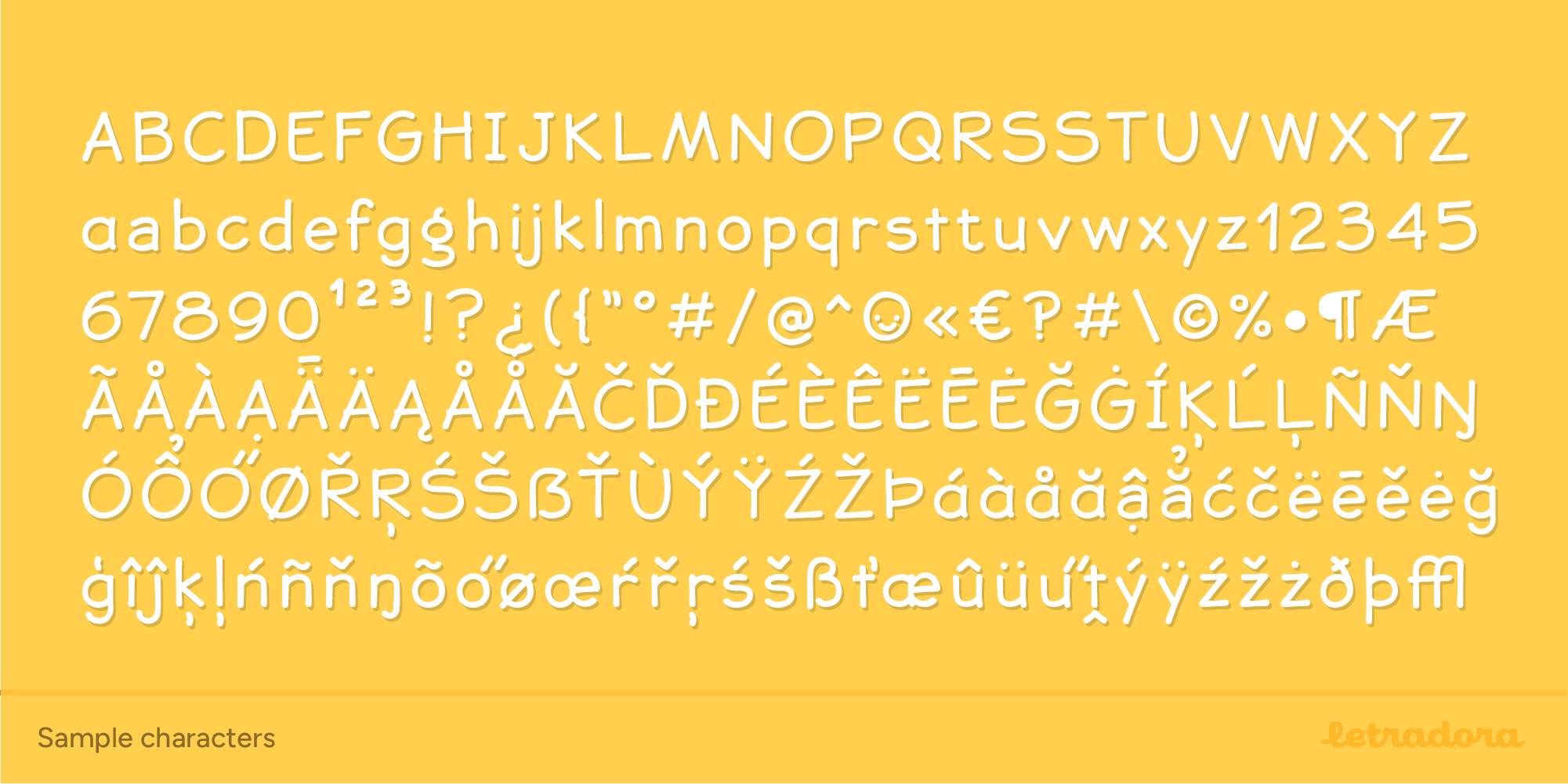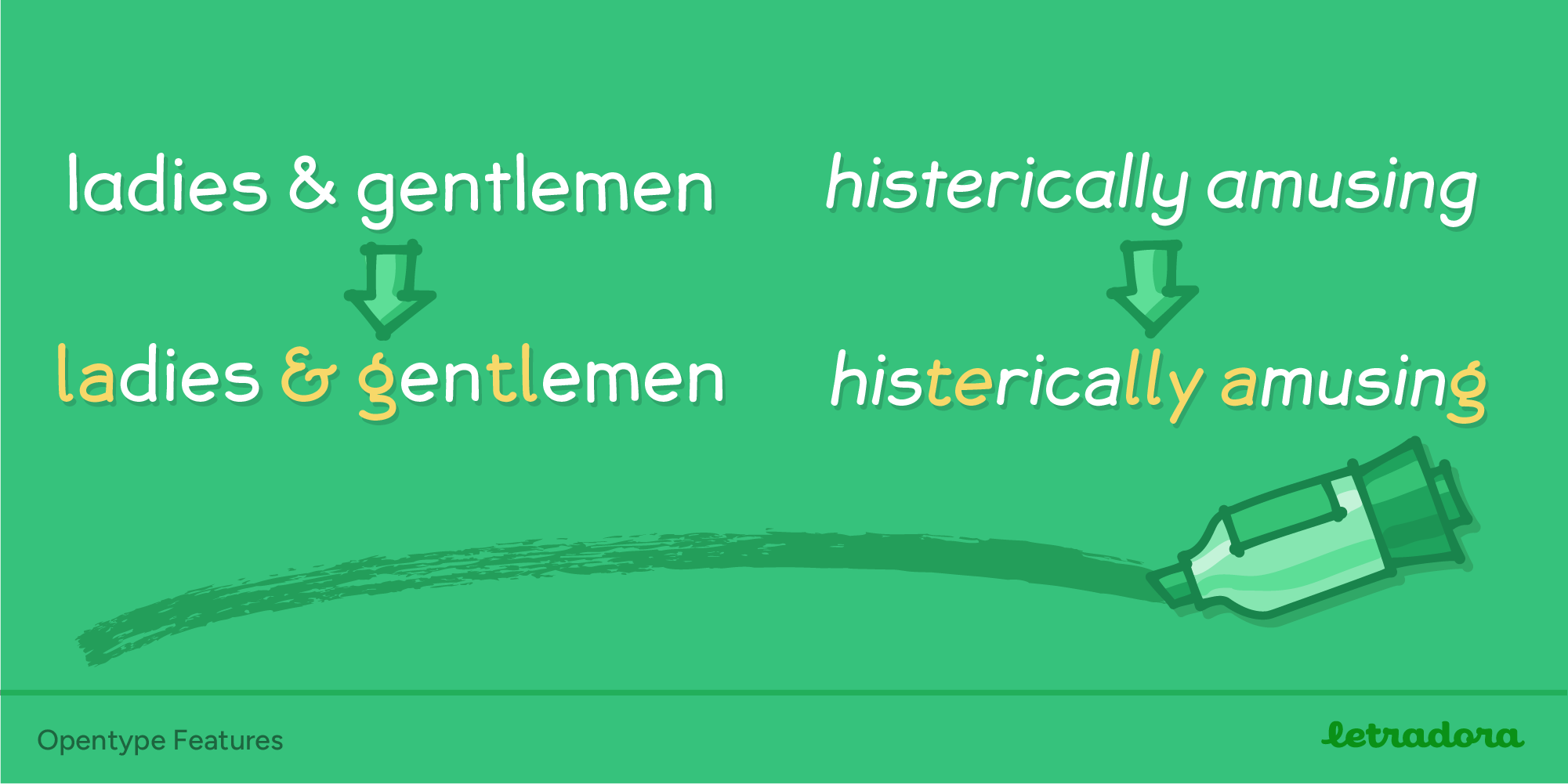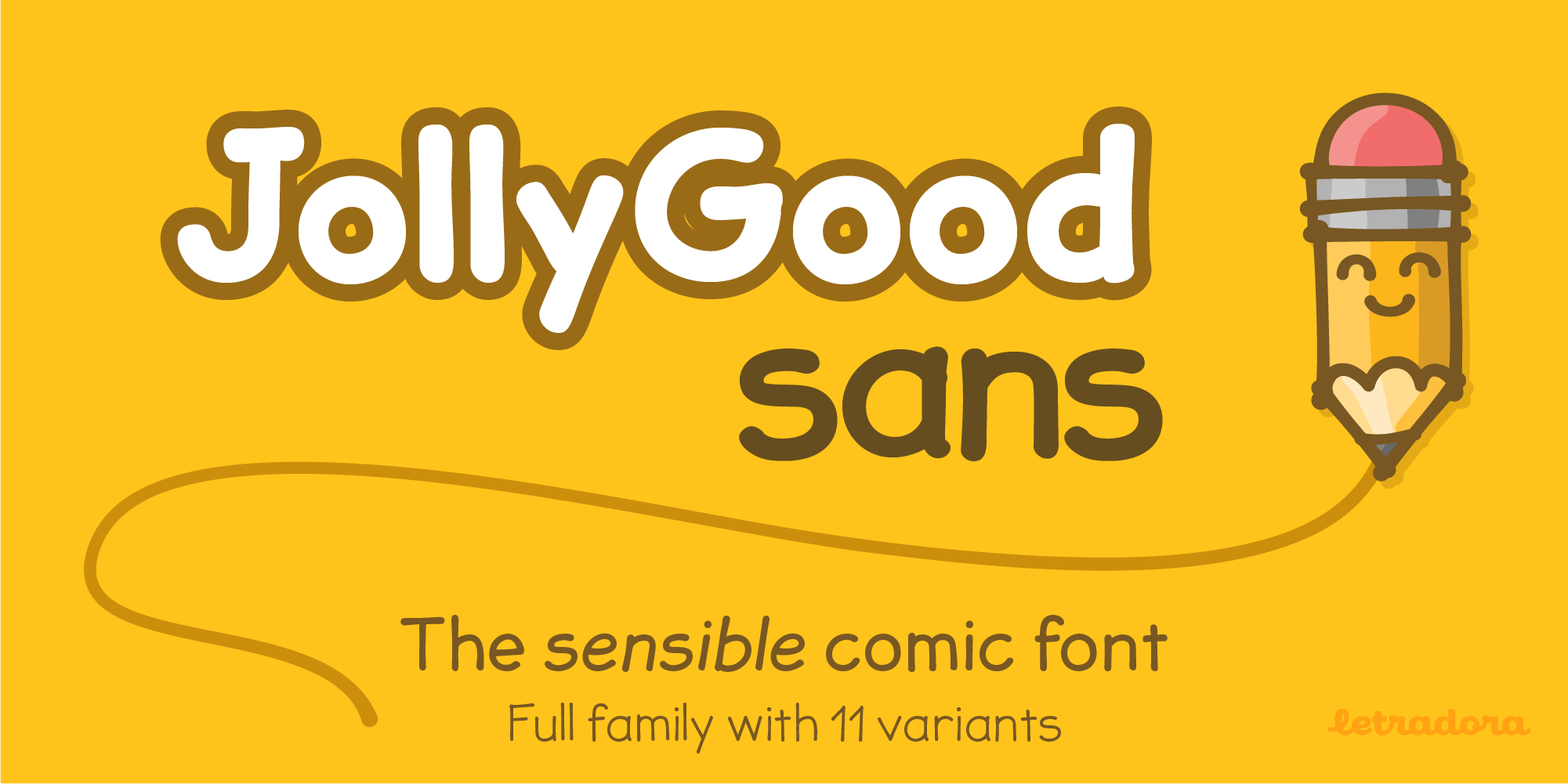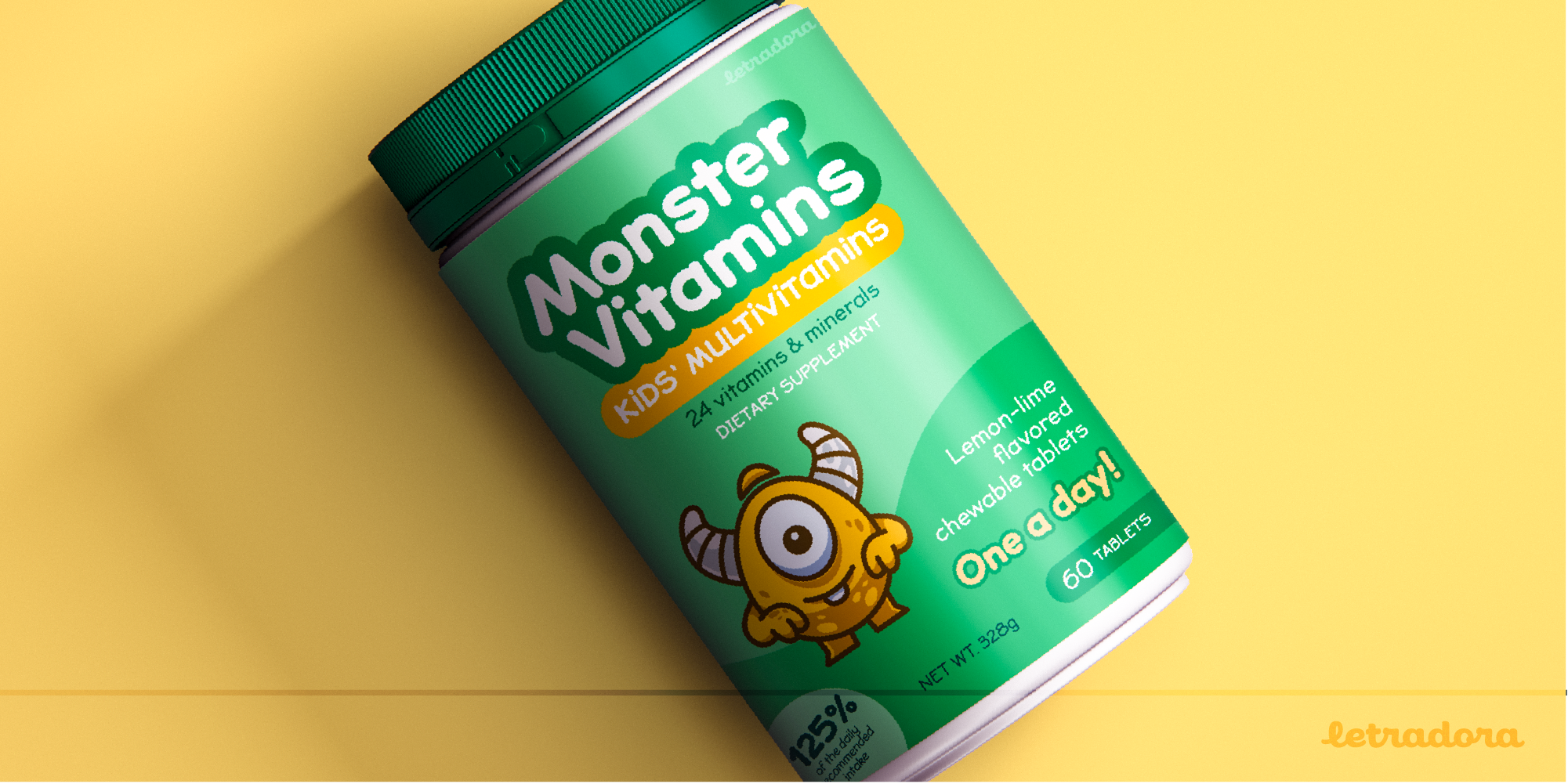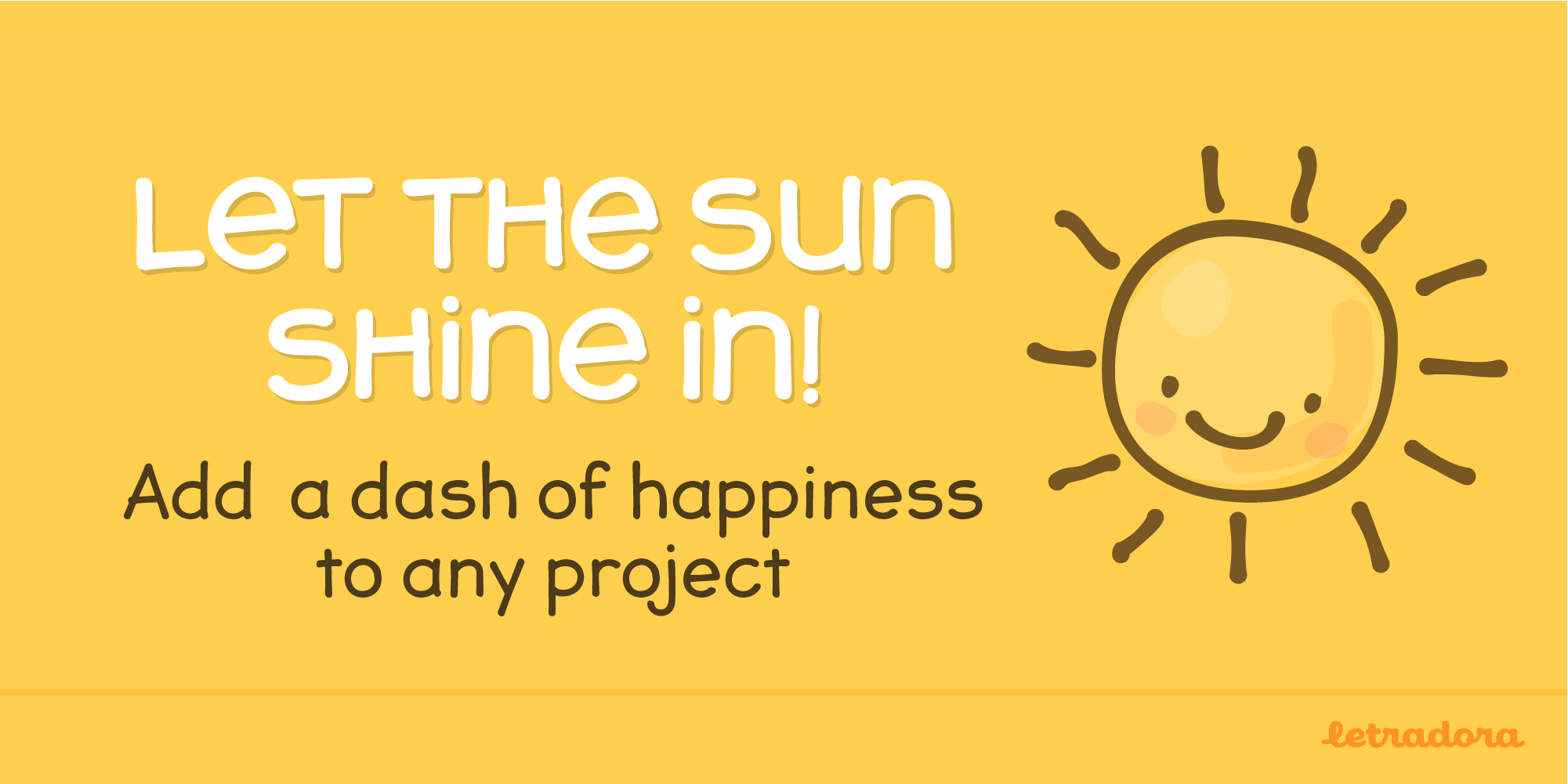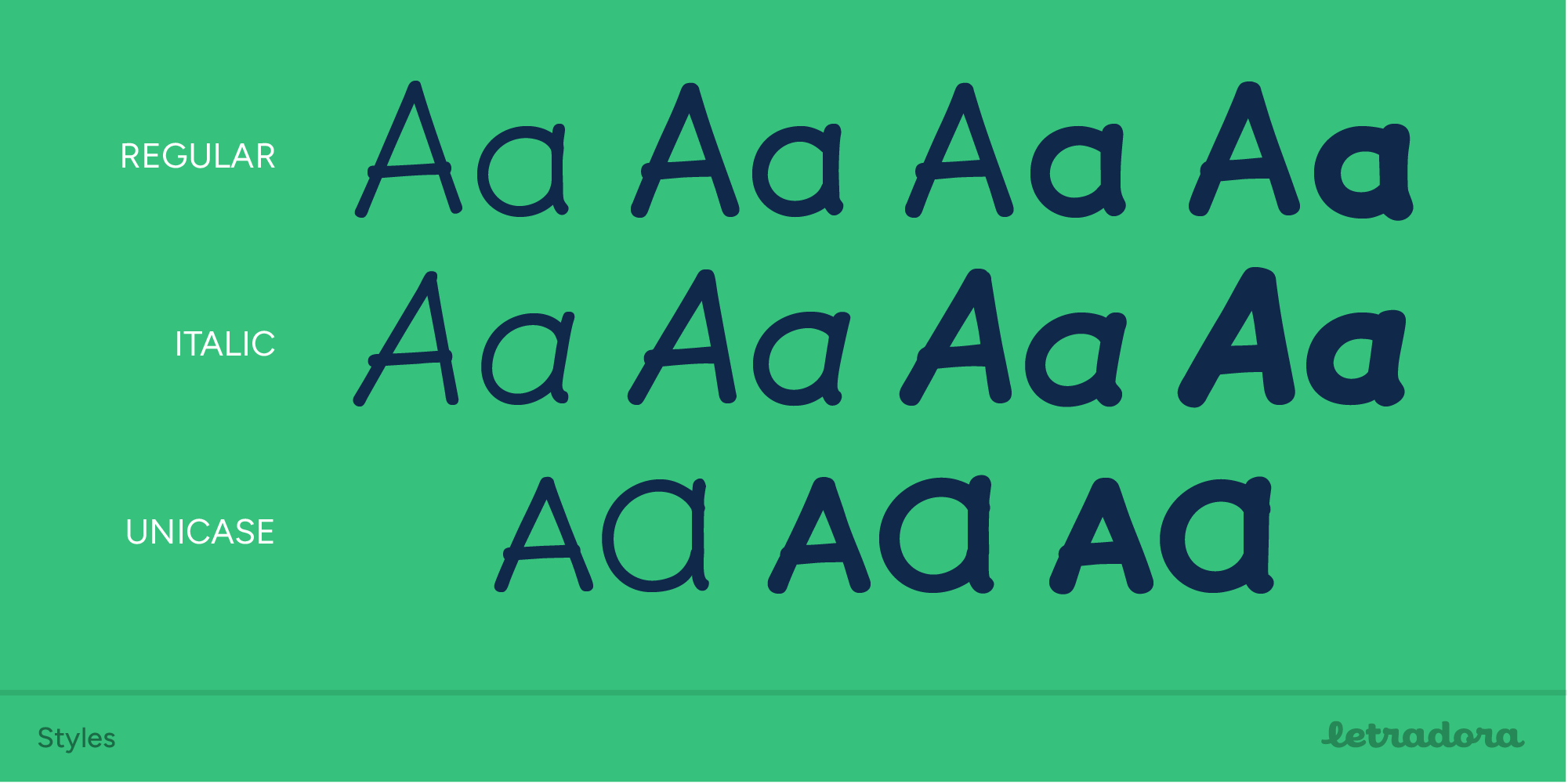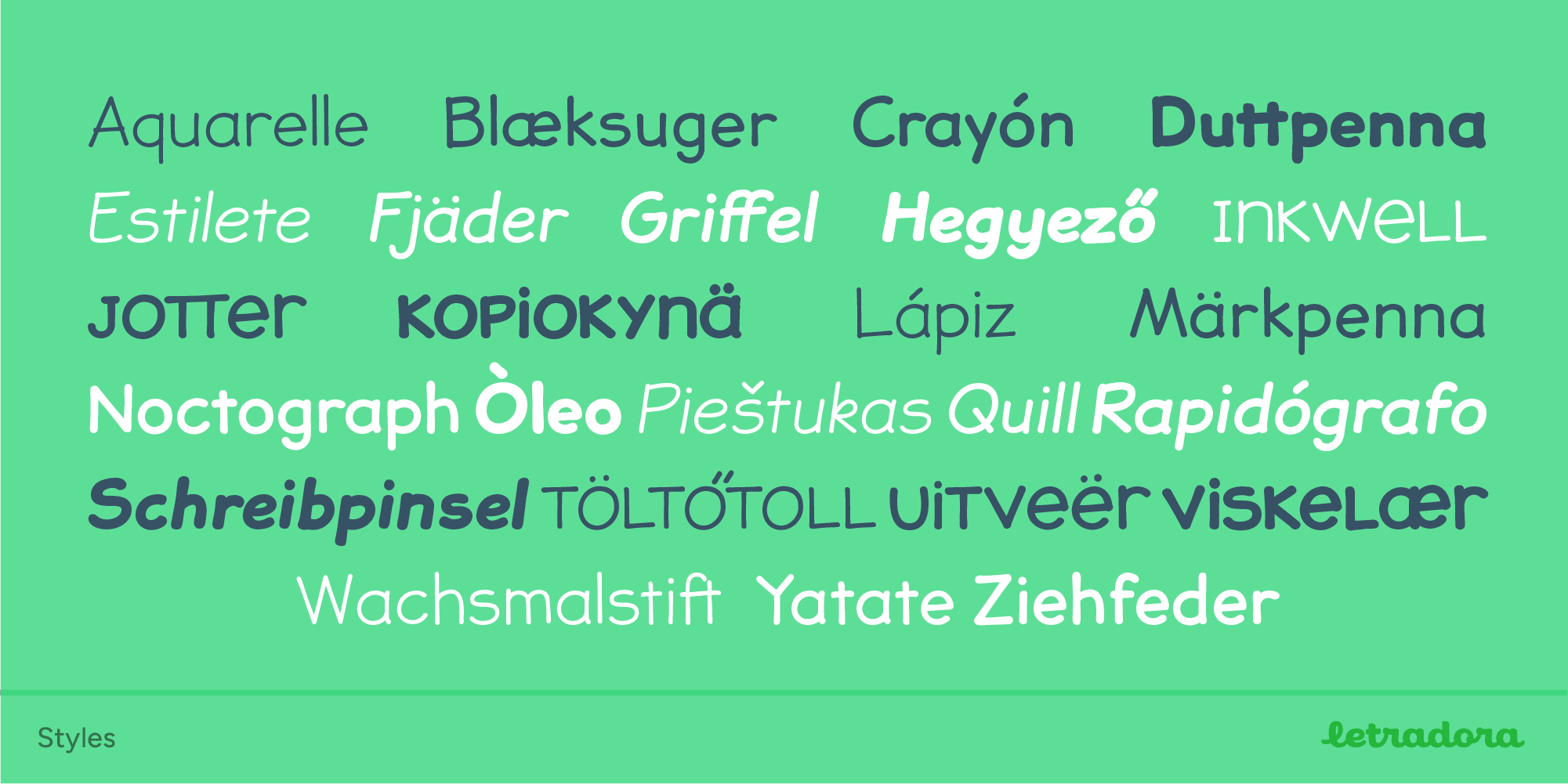
JollyGood Sans
The serious comic font!
Finally, a serious alternative to comic sans.
After years of mocking the font that shall not be named, I decided to create an alternative. I wanted to keep the fun feel and the comic book roots, but have a more polished look. The result? JollyGood Sans, a complete font family, with great language support, a big range of weights and styles, and a friendly look.
The JollyGood family has lots of styles, condensed, text, and more.